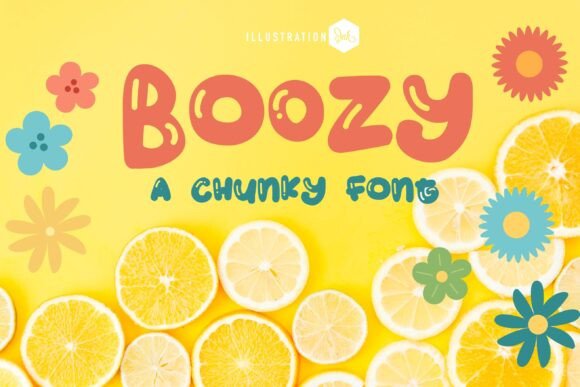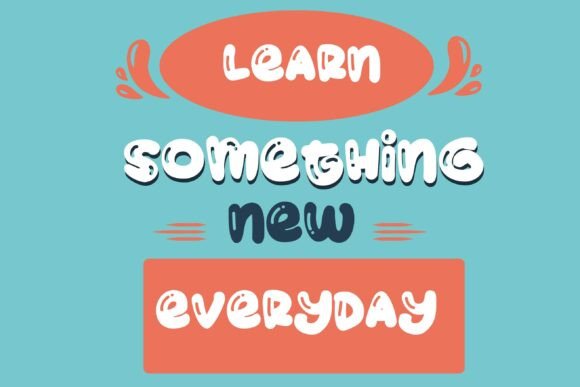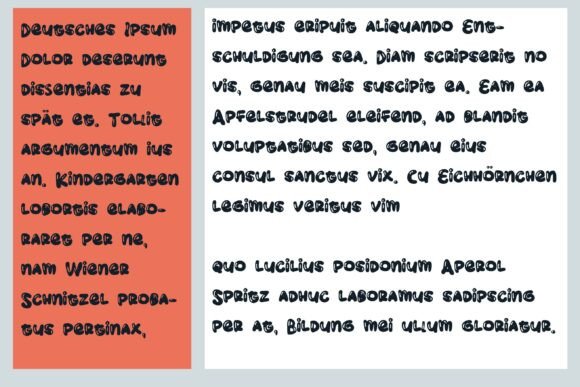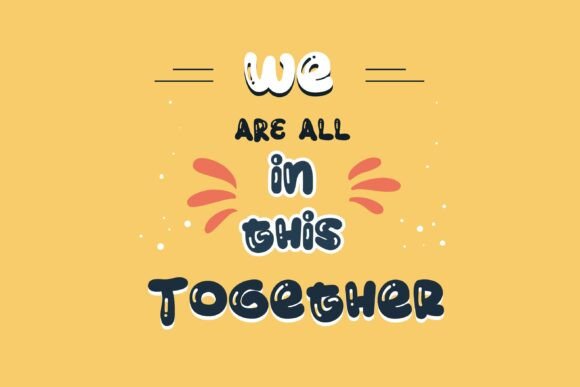
Boozy Boo Font
About the Boozy Boo Font
Explore the possibilities with Boozy Boo Font, a font that offers both beauty and functionality. This hand-crafted font is a soft, rounded, crafty font with highlights throughout.
Boozy Boo’s soft, rounded forms make it ideal for headlines, short text blocks on invitations or packaging, and branding elements requiring a friendly, approachable feel. Its handcrafted nature lends itself well to projects emphasizing artisanal qualities or a vintage aesthetic. However, its low x-height and decorative elements make it unsuitable for body text or UI applications where readability is paramount.
Pairing Boozy Boo with a clean sans-serif like Open Sans for body copy provides excellent contrast and visual balance. For a more playful feel, a geometric sans-serif such as Futura could be used, while a classic serif like Garamond would offer a sophisticated counterpoint.
The font exudes a charming, slightly whimsical personality, best suited for brands and projects that prioritize warmth and approachability. Avoid using it where a professional or highly formal tone is required.
Boozy Boo Font Usage Examples
Boozy Boo Font Example